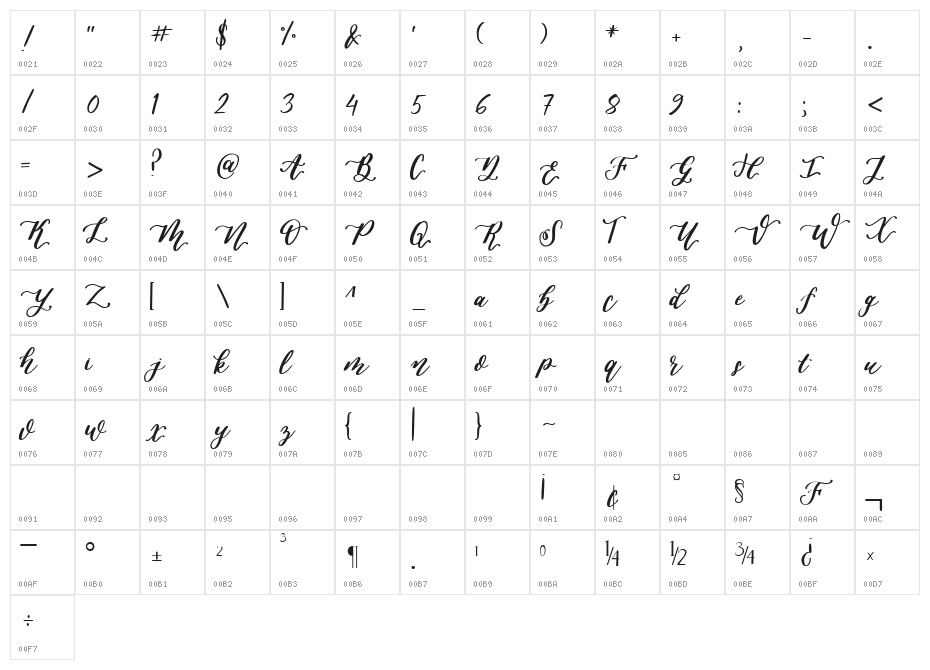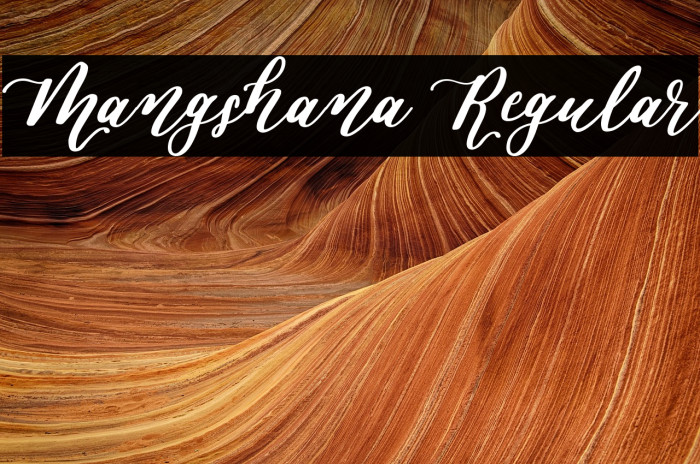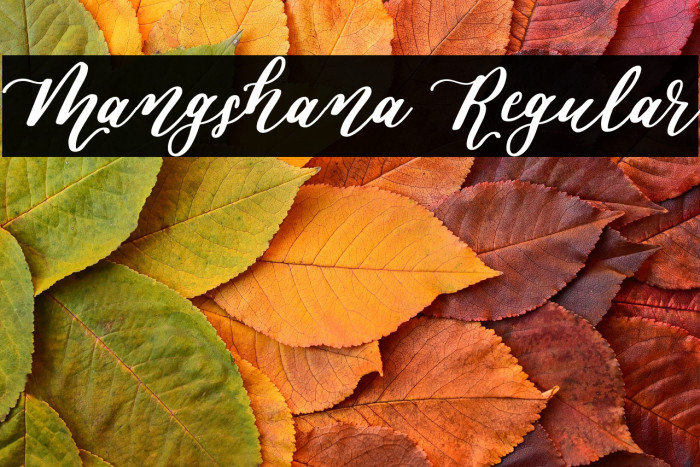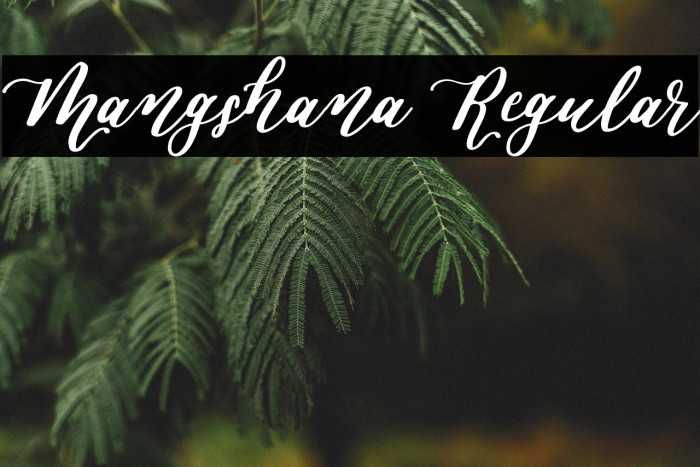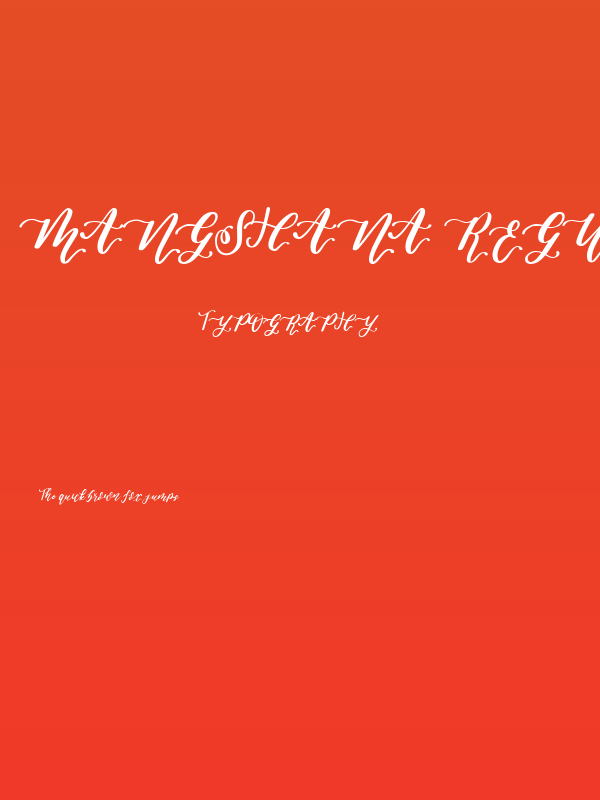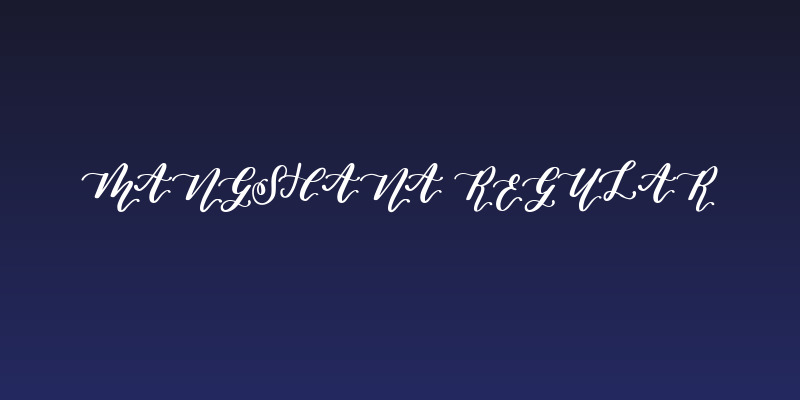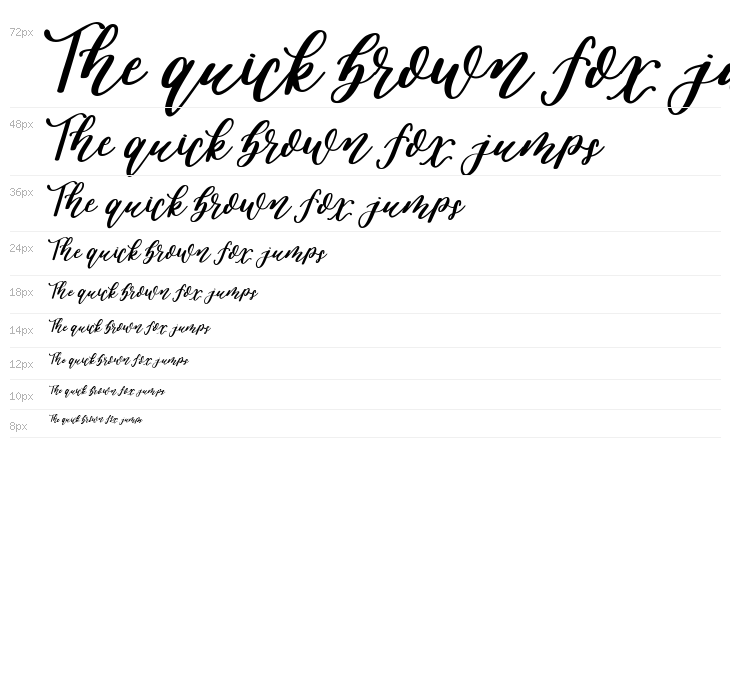
Mangshana Regular Font
Mangshana Regular Description
This font features a flowing, cursive style with elegant loops and swirls, reminiscent of traditional calligraphy. The uppercase letters are ornate, with exaggerated flourishes that give a sense of movement and grace. The lowercase letters maintain a consistent flow, connecting smoothly to create a harmonious script. The numerals are styled to match the letters, with a slight slant and decorative elements. Special characters are integrated seamlessly, maintaining the overall aesthetic. This font exudes a sense of sophistication and artistry, making it ideal for projects that require a touch of elegance.
| Proposed Projects | Ideal for wedding invitations, elegant branding, greeting cards, and artistic projects. |